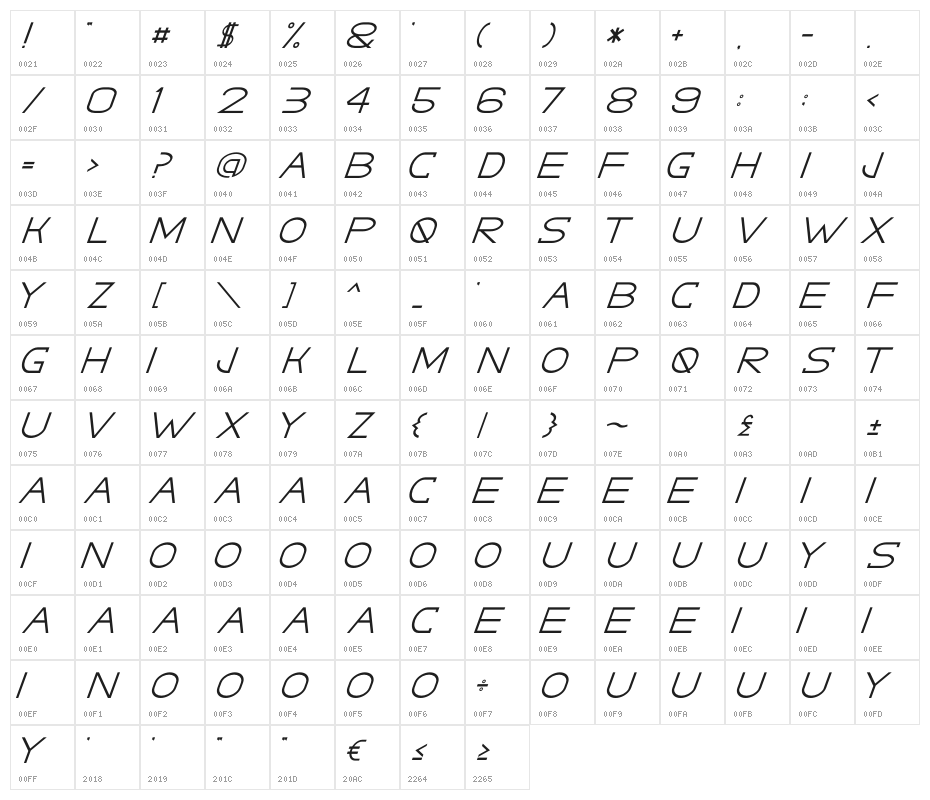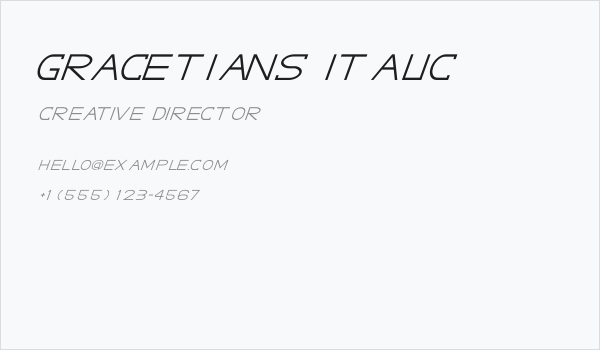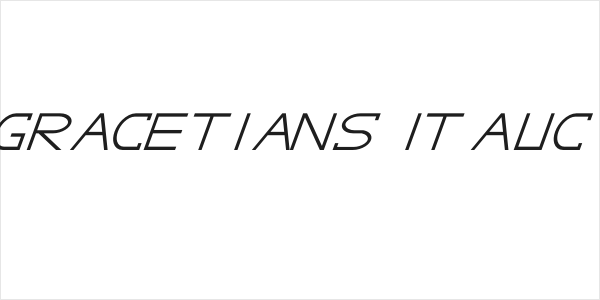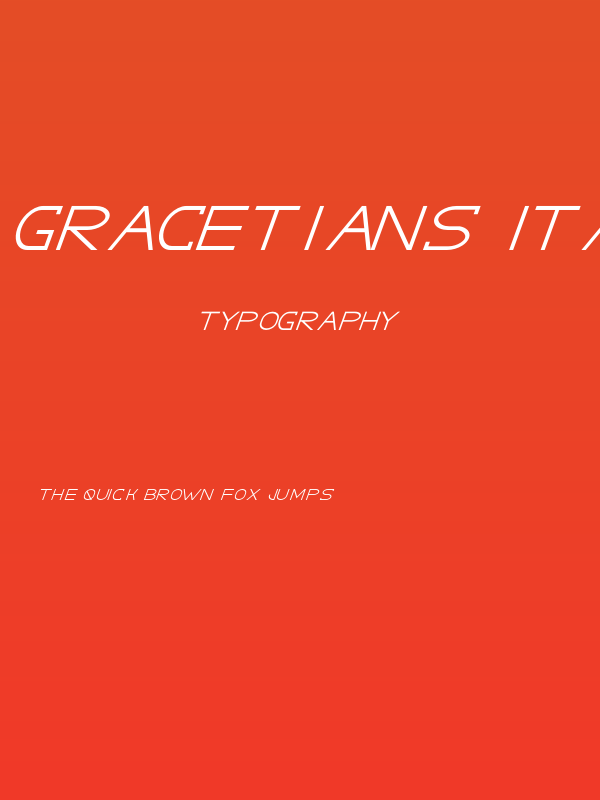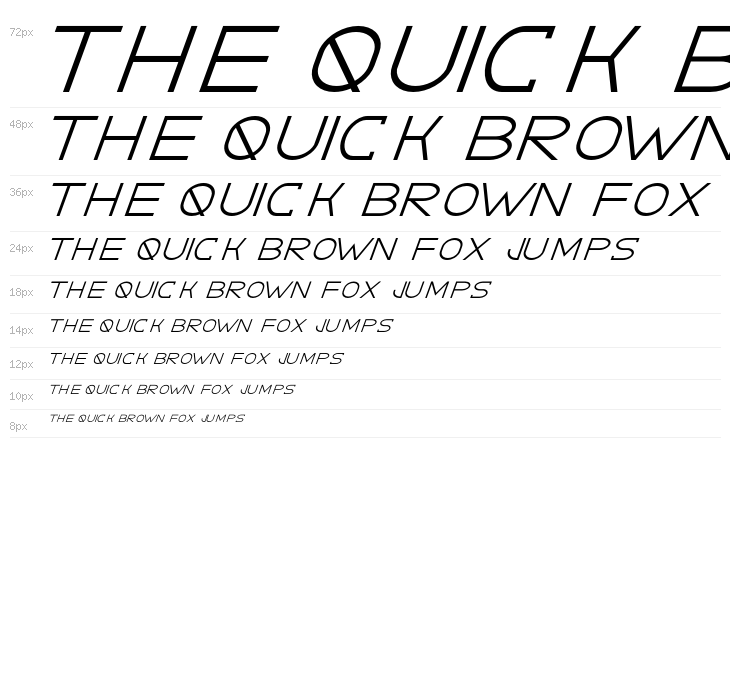
GRACETIANS Italic Font
GRACETIANS Italic Description
This font features a sleek, italicized design with a modern and streamlined appearance. The characters are slightly slanted, giving a sense of motion and elegance. The strokes are consistent in width, providing a uniform look across all letters and numbers. The uppercase and lowercase letters maintain a cohesive style, with smooth curves and sharp angles. The numerals are clear and easy to read, complementing the alphabetic characters. Special characters are included, maintaining the same italicized style, ensuring versatility in various design applications.
| Use Case | Headlines, Logos, Advertising |
| Proposed Projects | Ideal for branding, advertising, and editorial design projects where a modern and dynamic look is desired. |